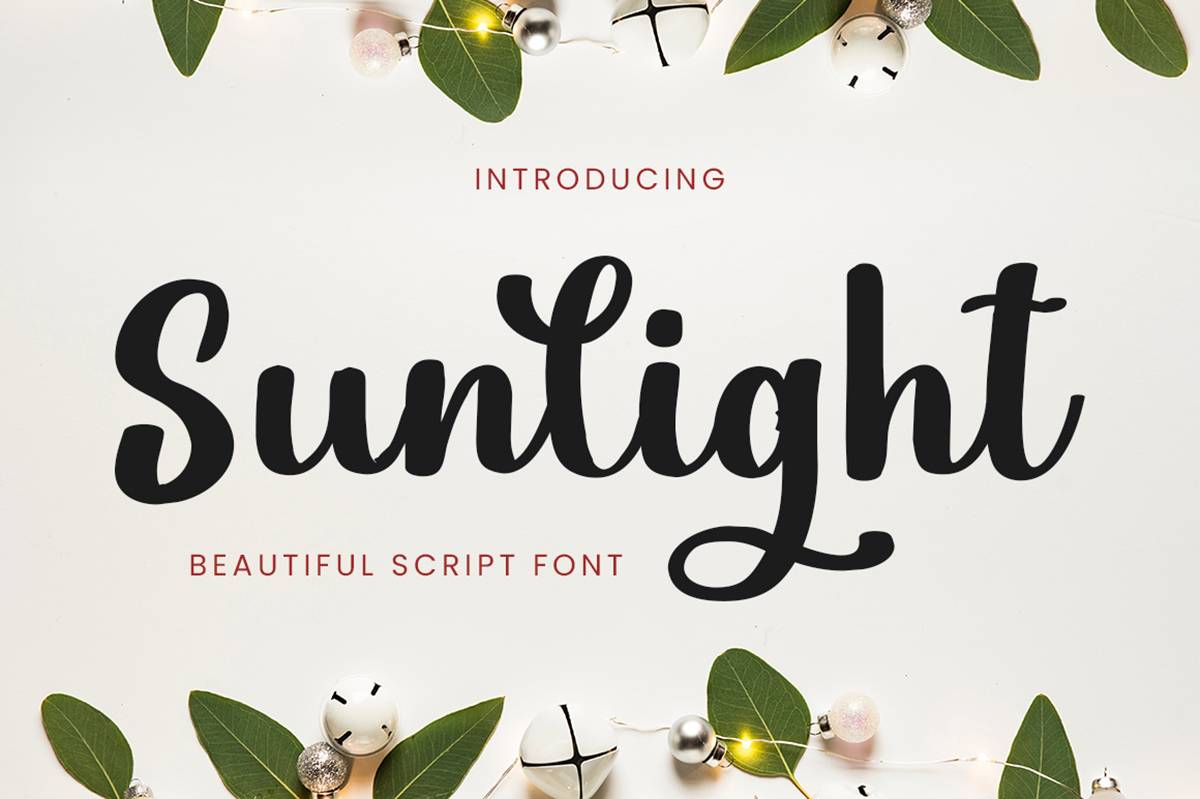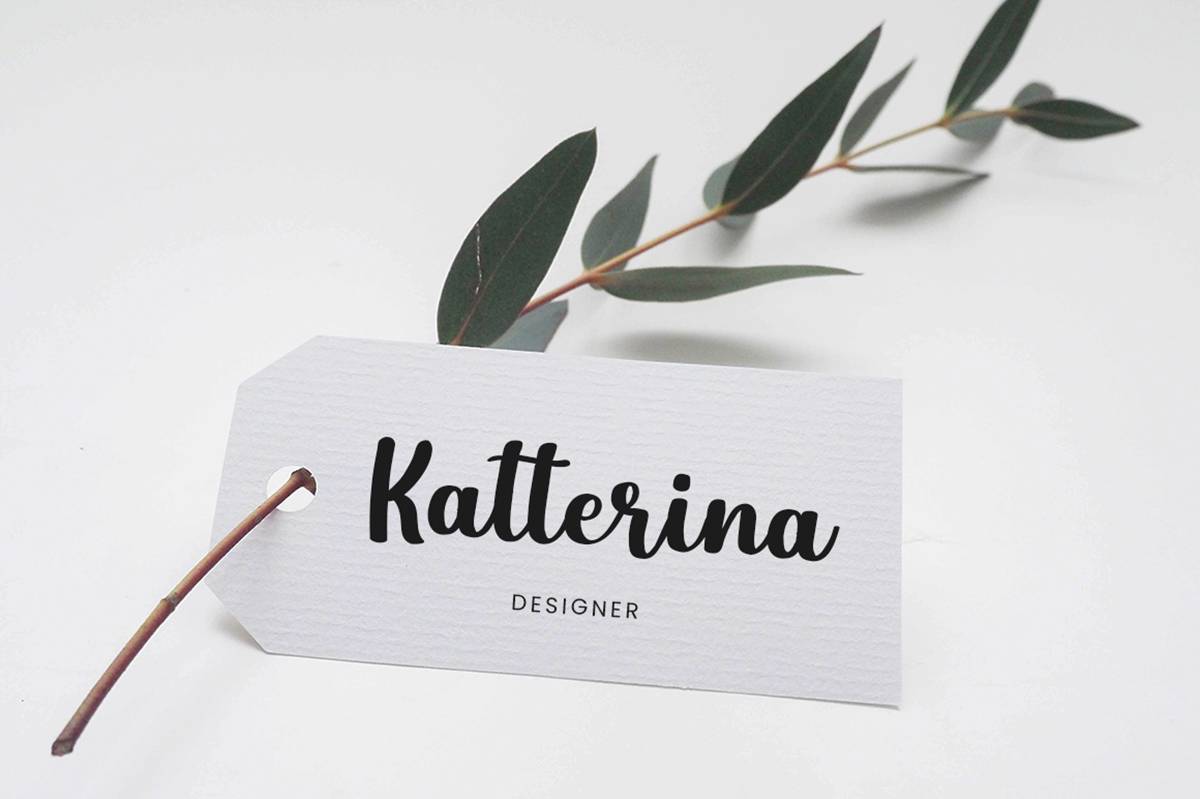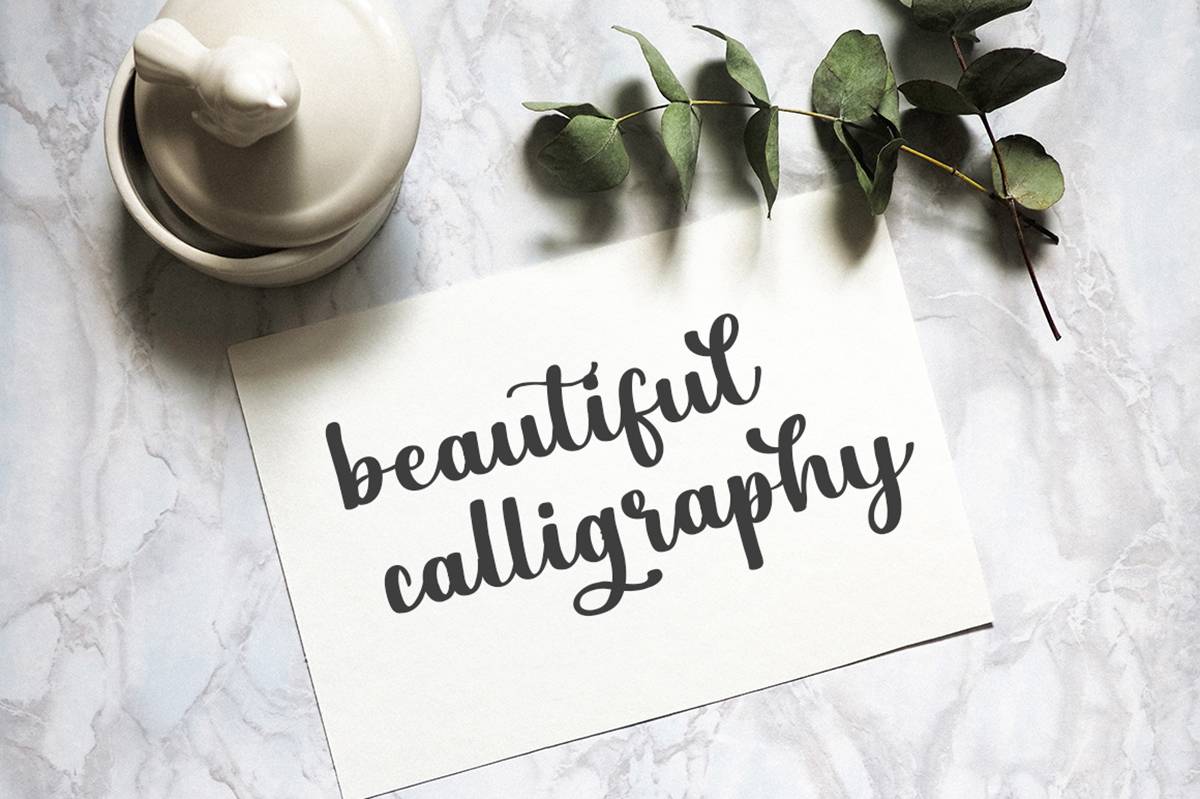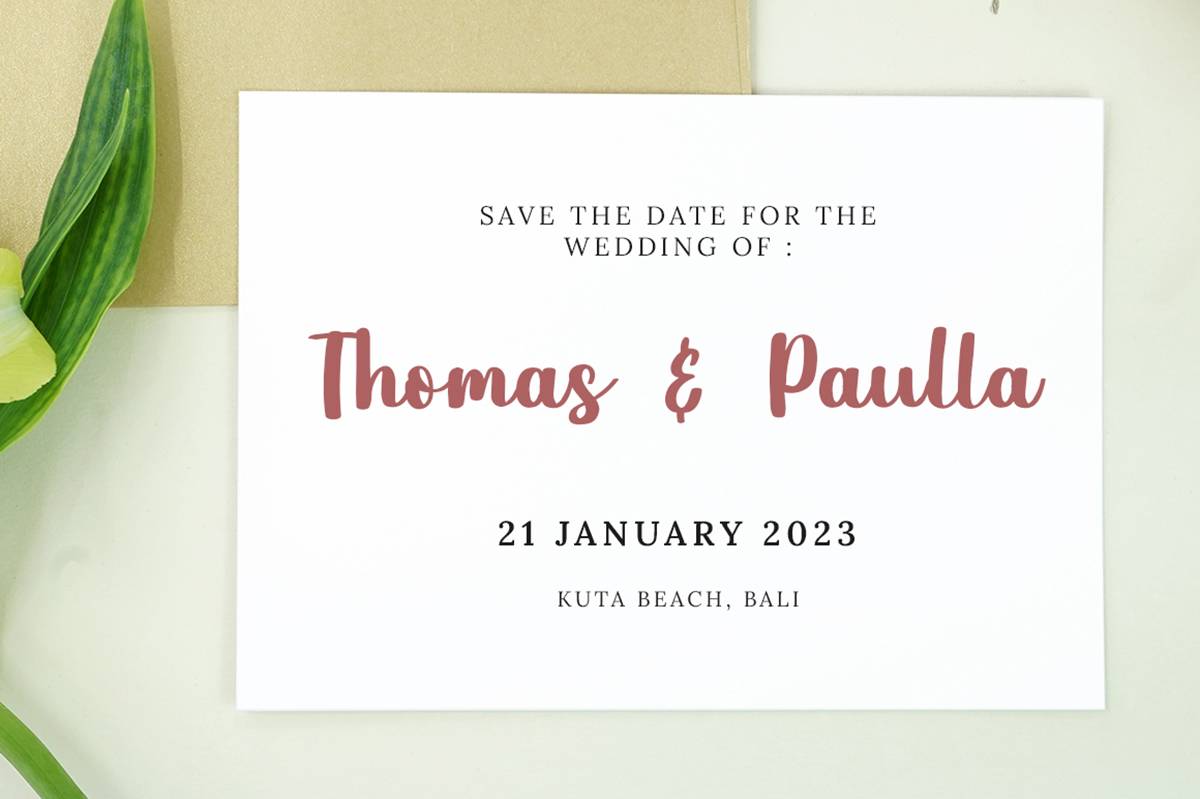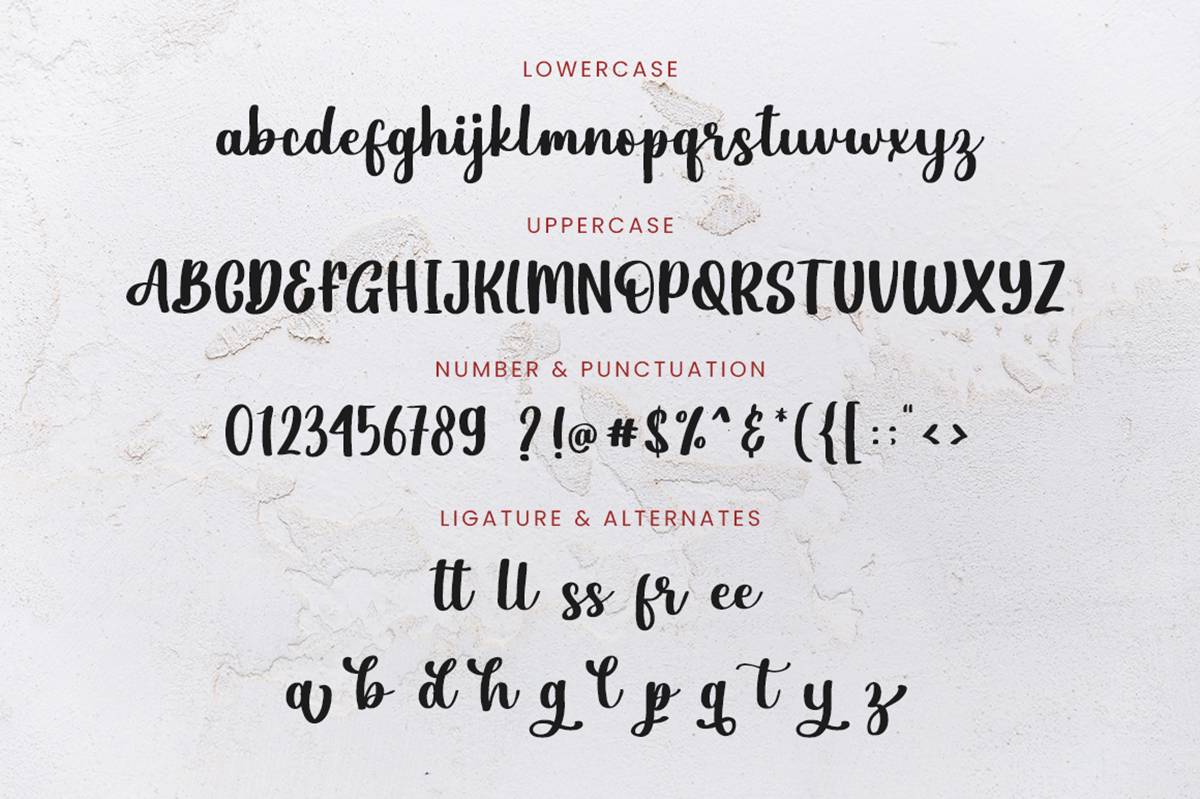
Sunlight is a lively script font with a friendly and warm personality, featuring smooth, rounded strokes and playful letterforms. Its moderate weight and fluid connections create an inviting feel, making it ideal for branding, packaging, and headlines where a personal, approachable touch is desired. This font works beautifully in creative and casual contexts, adding charm and elegance without sacrificing readability.
Sunlight Font
About Sunlight Font
| Font family | Sunlight Font |